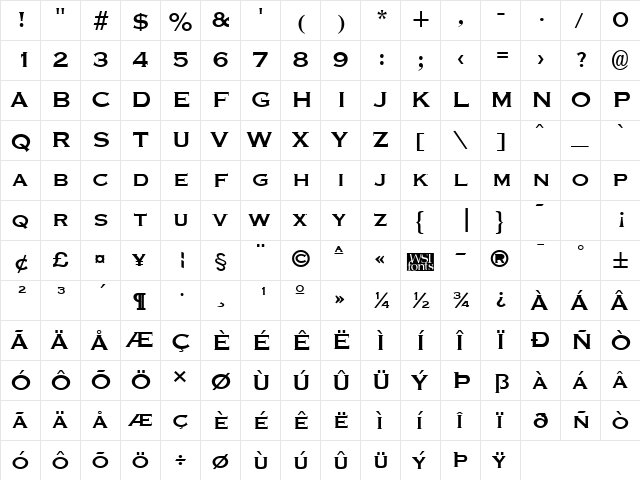
Graverplate Bold
Design Context for Graverplate Typeface
Graverplate is a composed and adaptable typeface that performs quietly and consistently across a wide range of design contexts. The heavy weight commands attention and anchors typographic hierarchies.